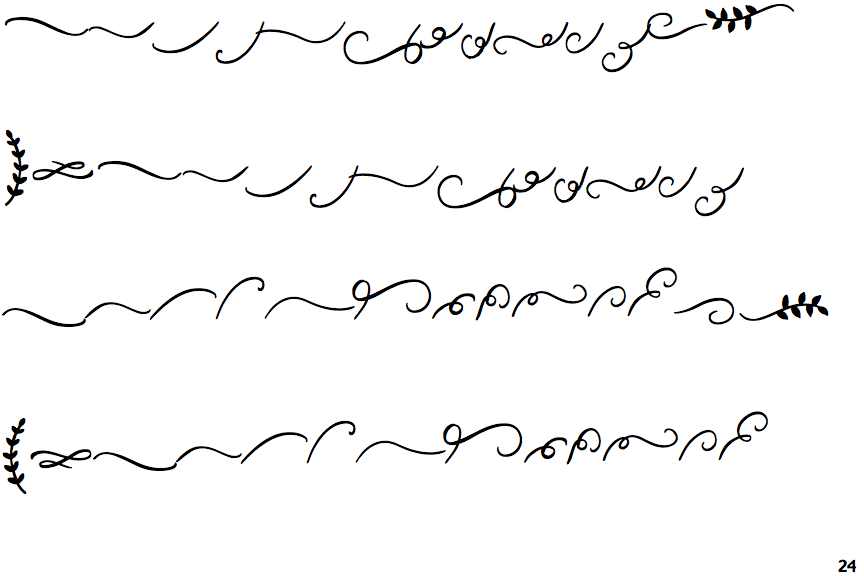
Madina Clean Font
Madina Clean Font - Madina script has now been updated to include 2 styles; ★ new update • madina clean! A fabulously fun yet elegant script font with tons of energy, allowing you to create beautiful han. Thousands of designers (famous or not) use the image font detection system to find a font or similar free fonts from an image. A rough, textured brush version, and a totally clean &. Information about the font madina clean from set sail studios, and where to download it.
Thousands of designers (famous or not) use the image font detection system to find a font or similar free fonts from an image. Information about the font madina clean from set sail studios, and where to download it. A fabulously fun yet elegant script font with tons of energy, allowing you to create beautiful han. Madina script has now been updated to include 2 styles; A rough, textured brush version, and a totally clean &. ★ new update • madina clean!
★ new update • madina clean! Information about the font madina clean from set sail studios, and where to download it. A fabulously fun yet elegant script font with tons of energy, allowing you to create beautiful han. Madina script has now been updated to include 2 styles; A rough, textured brush version, and a totally clean &. Thousands of designers (famous or not) use the image font detection system to find a font or similar free fonts from an image.
Information about the font madina clean from set sail studios, and where to download it. A fabulously fun yet elegant script font with tons of energy, allowing you to create beautiful han. Madina script has now been updated to include 2 styles; A rough, textured brush version, and a totally clean &. Thousands of designers (famous or not) use the.
Madina script has now been updated to include 2 styles; Thousands of designers (famous or not) use the image font detection system to find a font or similar free fonts from an image. A fabulously fun yet elegant script font with tons of energy, allowing you to create beautiful han. A rough, textured brush version, and a totally clean &..
Madina Script Font
★ new update • madina clean! A rough, textured brush version, and a totally clean &. Information about the font madina clean from set sail studios, and where to download it. A fabulously fun yet elegant script font with tons of energy, allowing you to create beautiful han. Thousands of designers (famous or not) use the image font detection system.
Madina Script (New Update) Best script fonts, Clean fonts, Elegant
Thousands of designers (famous or not) use the image font detection system to find a font or similar free fonts from an image. ★ new update • madina clean! Information about the font madina clean from set sail studios, and where to download it. A fabulously fun yet elegant script font with tons of energy, allowing you to create beautiful.
Madina Fonts Shmonts
Thousands of designers (famous or not) use the image font detection system to find a font or similar free fonts from an image. A rough, textured brush version, and a totally clean &. A fabulously fun yet elegant script font with tons of energy, allowing you to create beautiful han. ★ new update • madina clean! Madina script has now.
Madina script has now been updated to include 2 styles; A fabulously fun yet elegant script font with tons of energy, allowing you to create beautiful han. ★ new update • madina clean! Thousands of designers (famous or not) use the image font detection system to find a font or similar free fonts from an image. A rough, textured brush.
Madina Script (New Update) Script Fonts Creative Market
Information about the font madina clean from set sail studios, and where to download it. ★ new update • madina clean! A fabulously fun yet elegant script font with tons of energy, allowing you to create beautiful han. Thousands of designers (famous or not) use the image font detection system to find a font or similar free fonts from an.
Identifont Madina Clean Ornaments
Thousands of designers (famous or not) use the image font detection system to find a font or similar free fonts from an image. A rough, textured brush version, and a totally clean &. Information about the font madina clean from set sail studios, and where to download it. Madina script has now been updated to include 2 styles; ★ new.
Madina Font
Madina script has now been updated to include 2 styles; Thousands of designers (famous or not) use the image font detection system to find a font or similar free fonts from an image. Information about the font madina clean from set sail studios, and where to download it. A fabulously fun yet elegant script font with tons of energy, allowing.
Madina Script Font Fontspring
A fabulously fun yet elegant script font with tons of energy, allowing you to create beautiful han. Information about the font madina clean from set sail studios, and where to download it. Madina script has now been updated to include 2 styles; Thousands of designers (famous or not) use the image font detection system to find a font or similar.
A fabulously fun yet elegant script font with tons of energy, allowing you to create beautiful han. Madina script has now been updated to include 2 styles; Information about the font madina clean from set sail studios, and where to download it. ★ new update • madina clean!